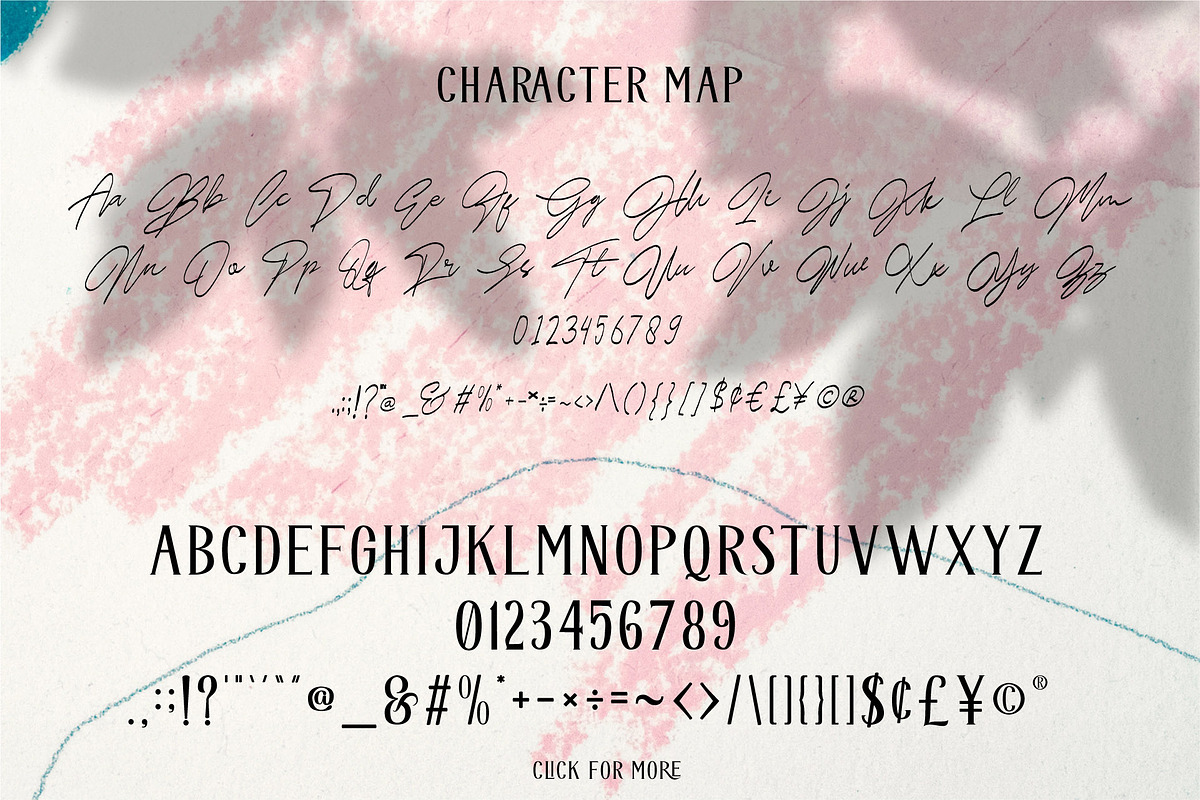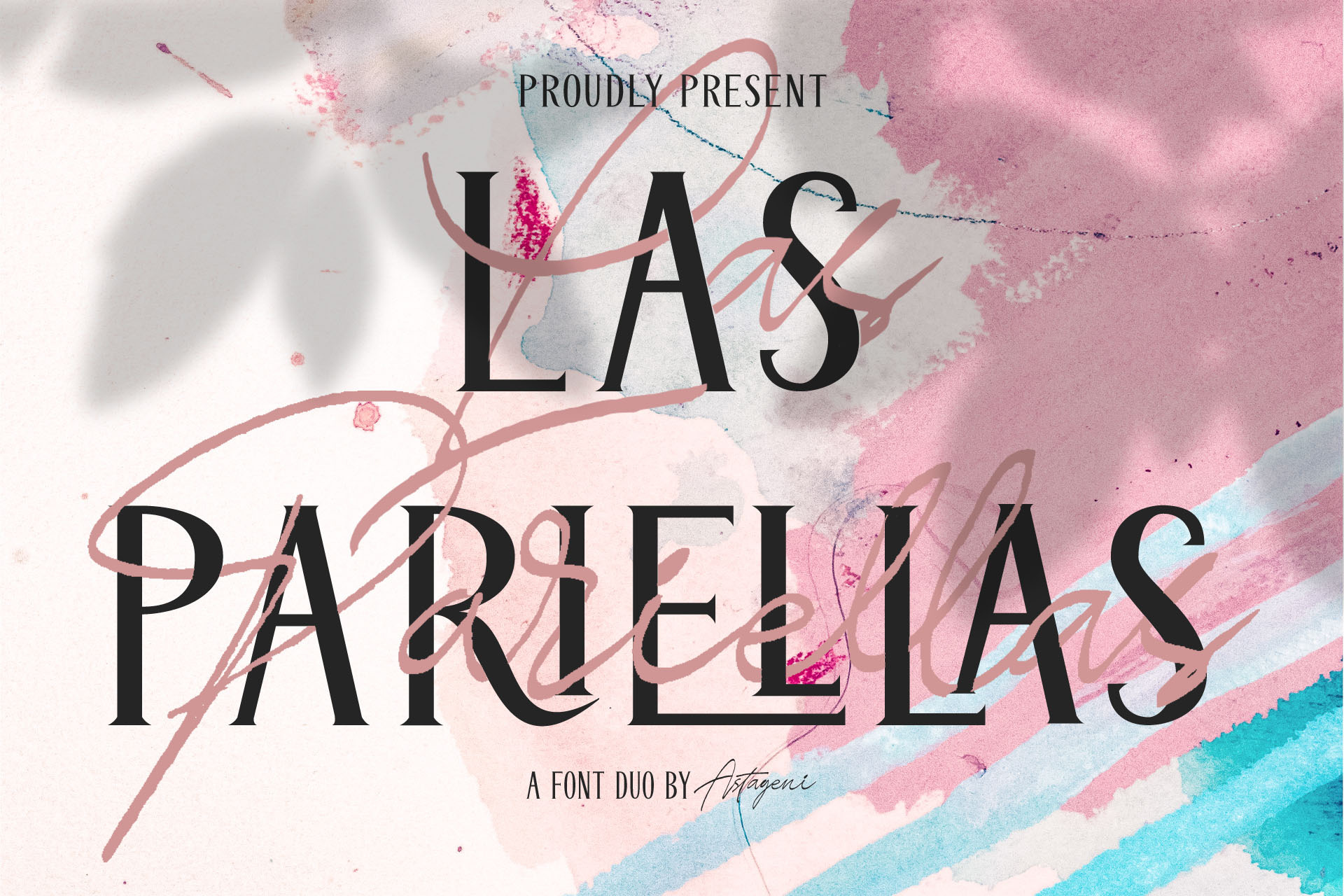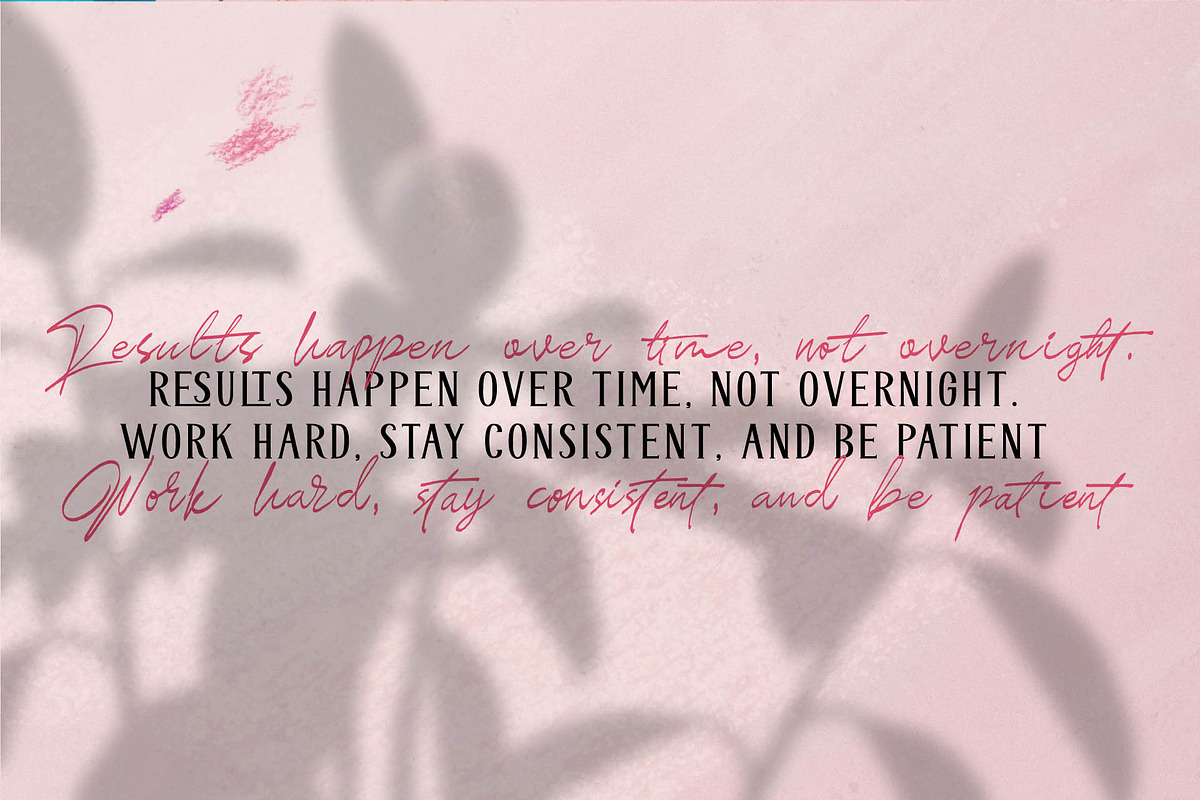
Las Pariellas Font Duo
Introducing of our new product the name is Las Pariellas Font. including 2 variation font, Handwritten style and serif font, perfect for pairing, the handwritten font is made by real fountain pen, and auto trace to give some realistic rought effect.
this font is a fun theme very good for signature, poster, fashion, Quote, wedding, branding etc